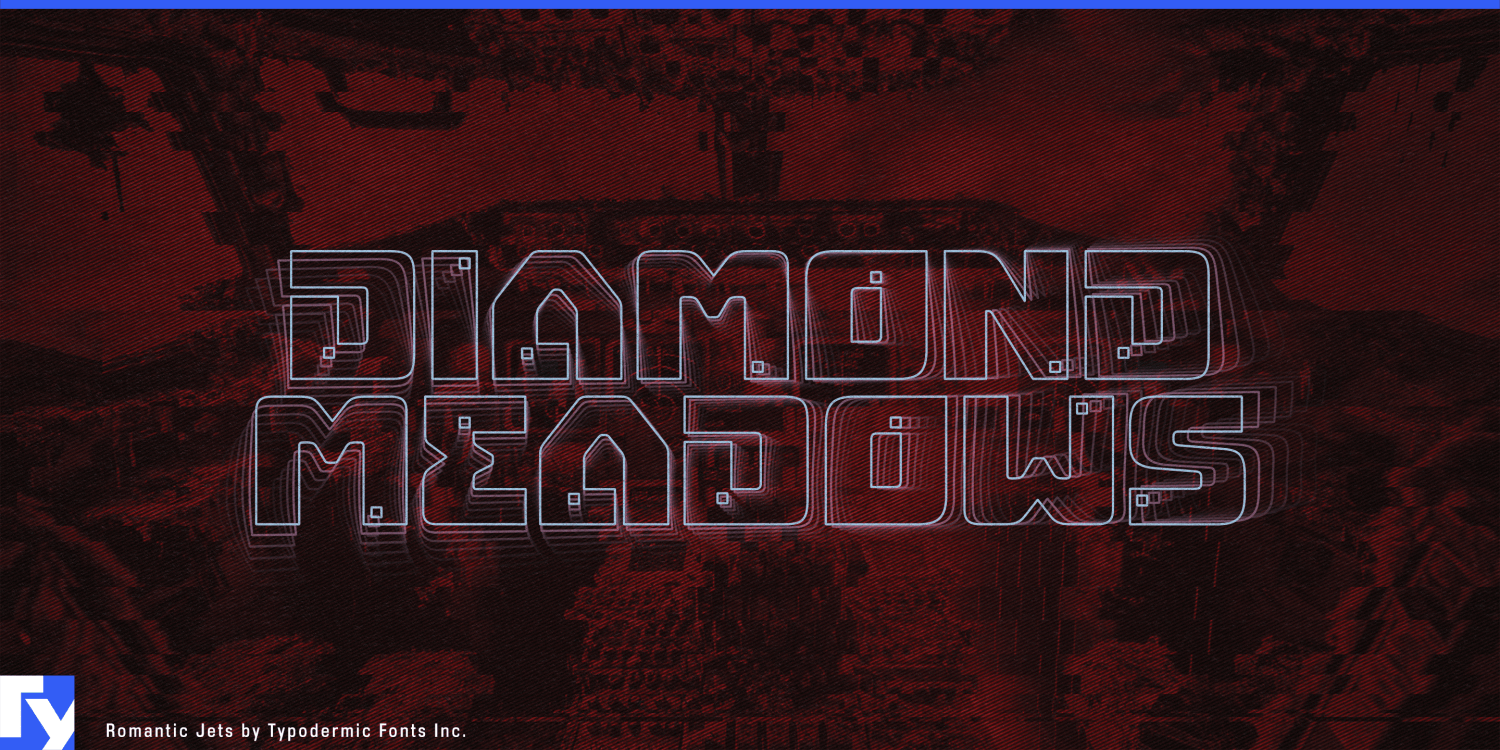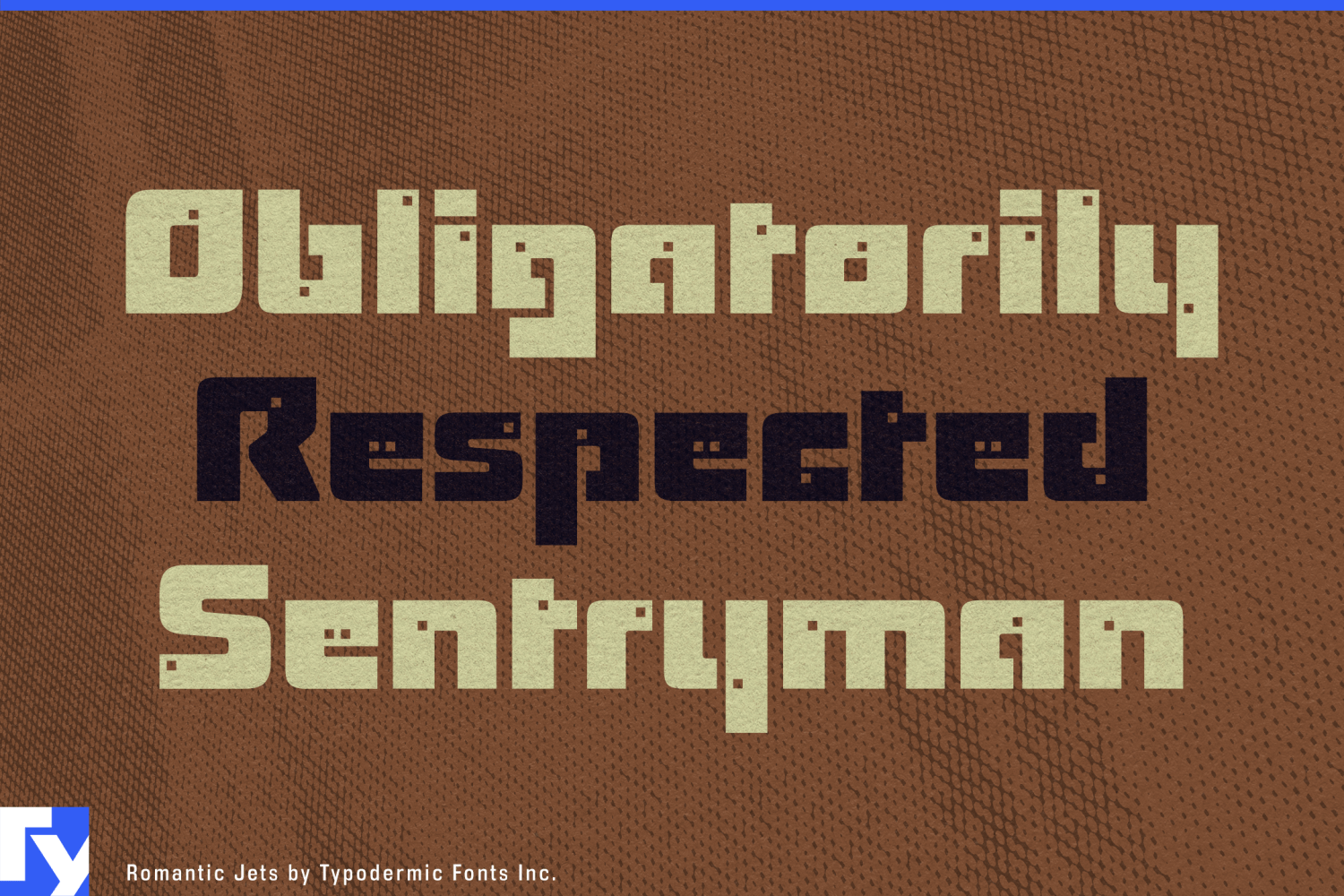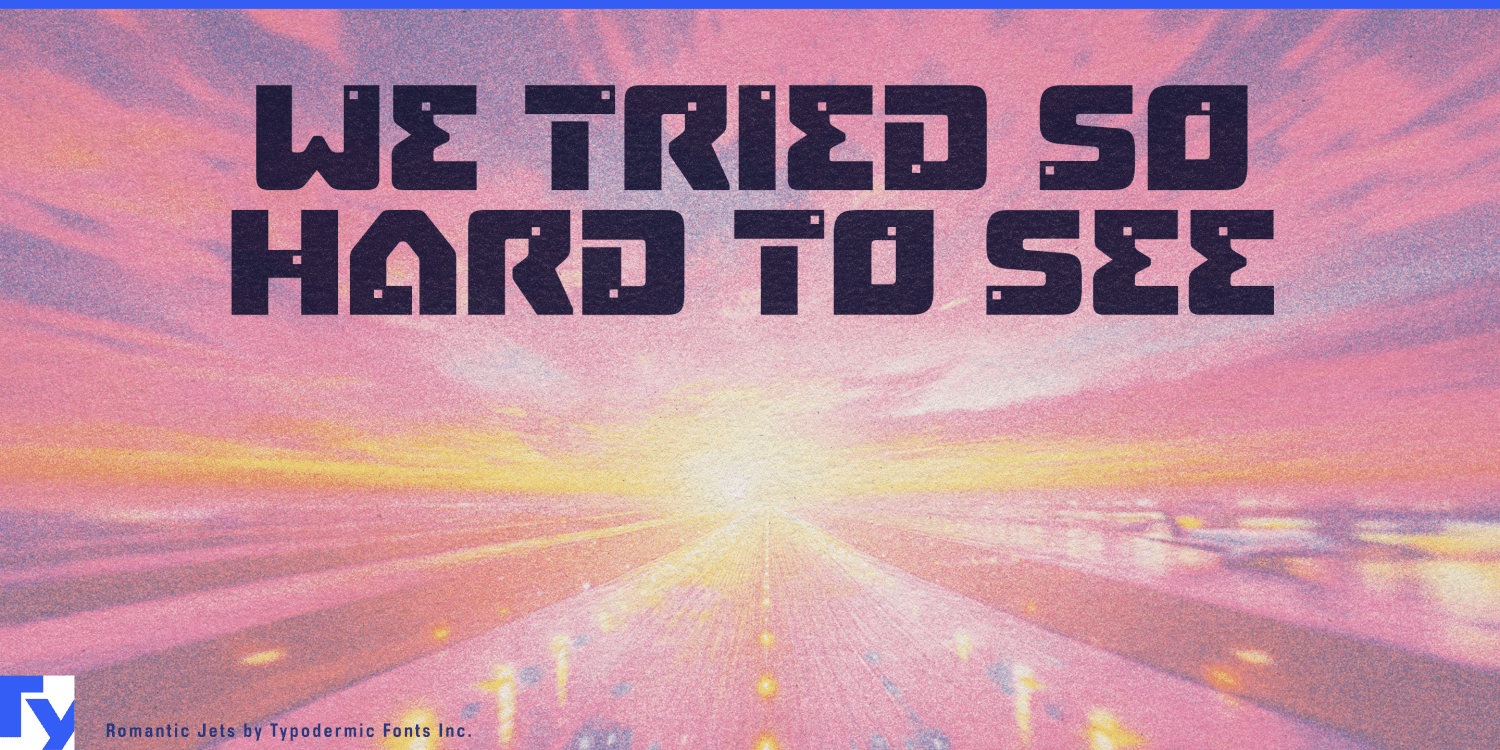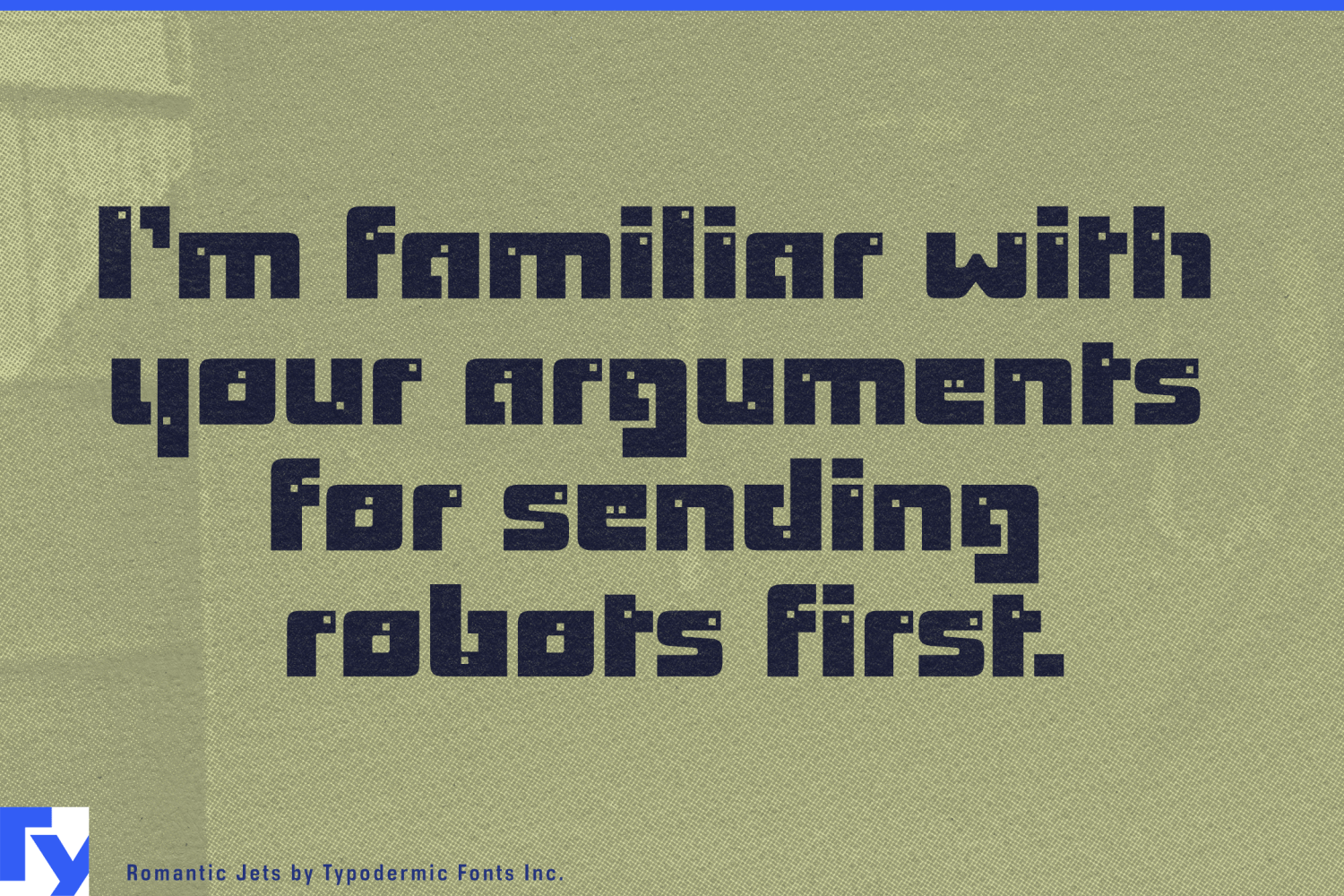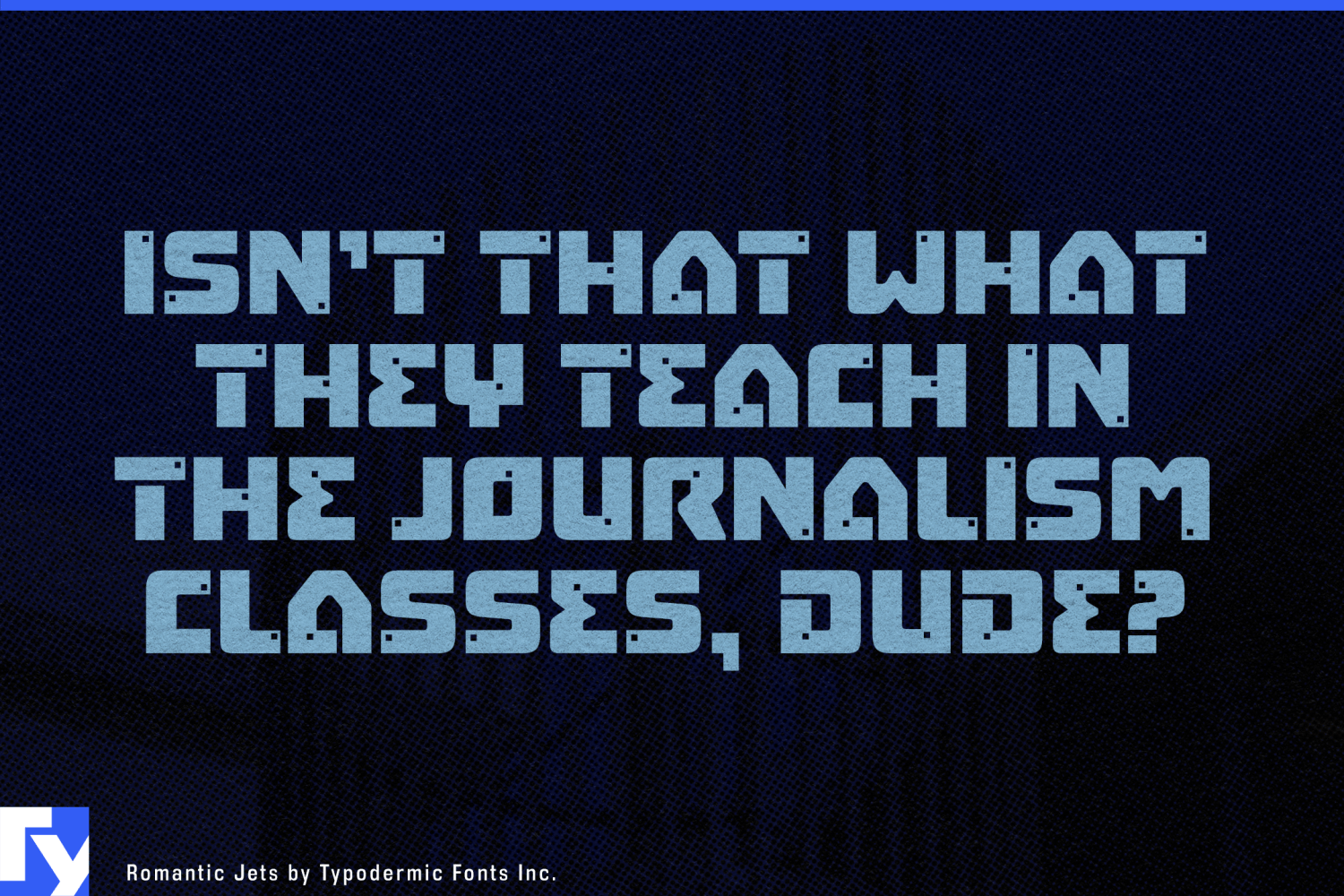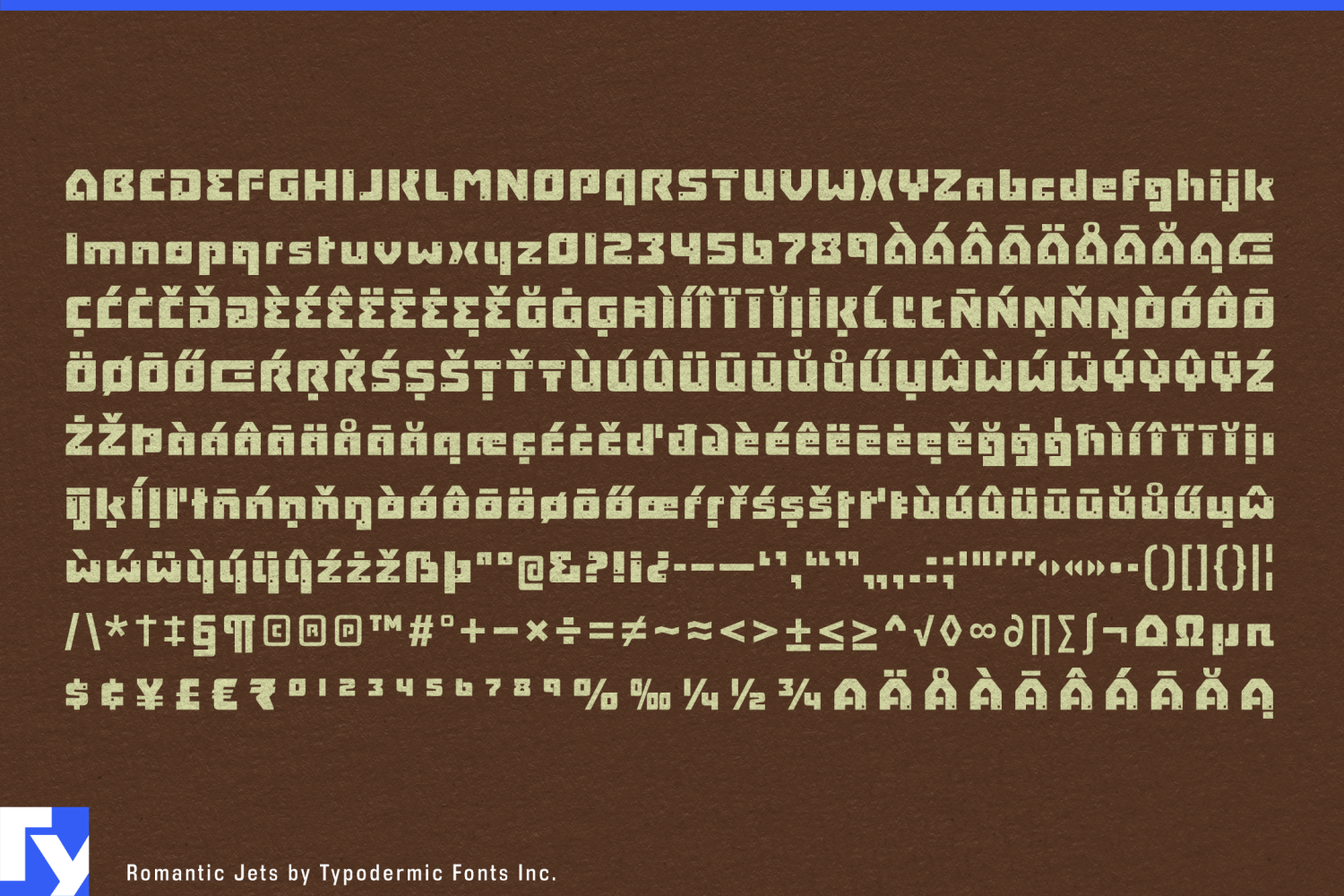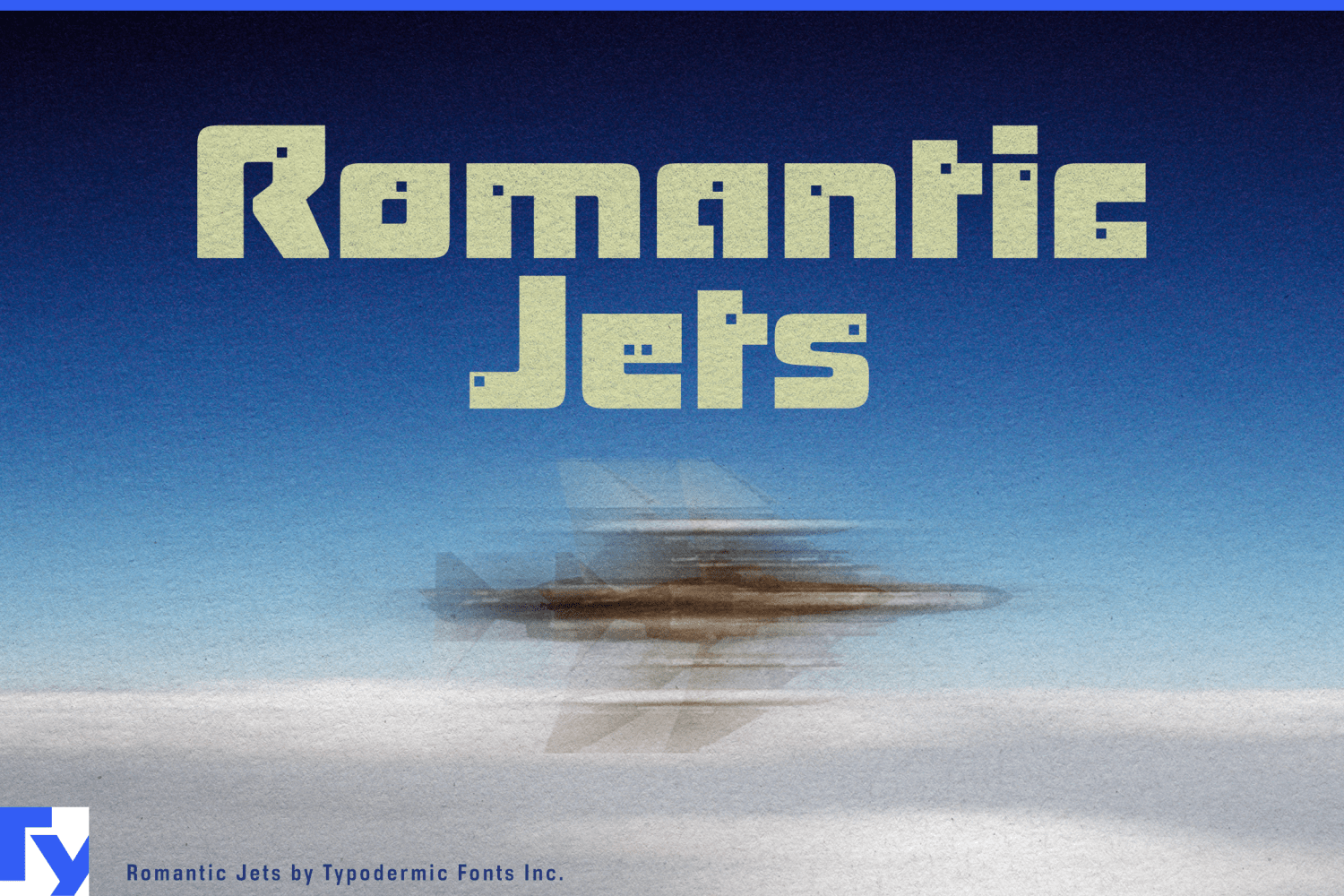
Fasten your seatbelts and prepare for takeoff with Romantic Jets, a display typeface that soars beyond the boundaries of conventional typography. Inspired by the raw power of jet engines and the unapologetic forms of brutalist architecture, Romantic Jets…